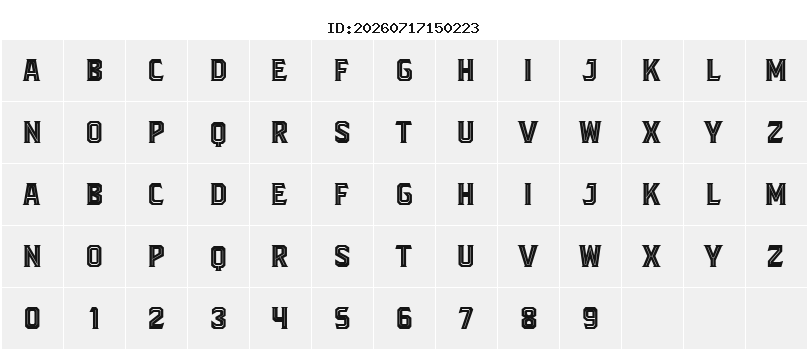
• Font Name: Blacktroops Inline
• Designer: Hendra Pratama (Mikrojihad)
About Blacktroops Inline.ttf
Blacktroops Inline.ttf is a modern, elegant sans-serif font designed for ultimate readability and visual harmony. Perfect for branding, headlines, web design, and print materials.